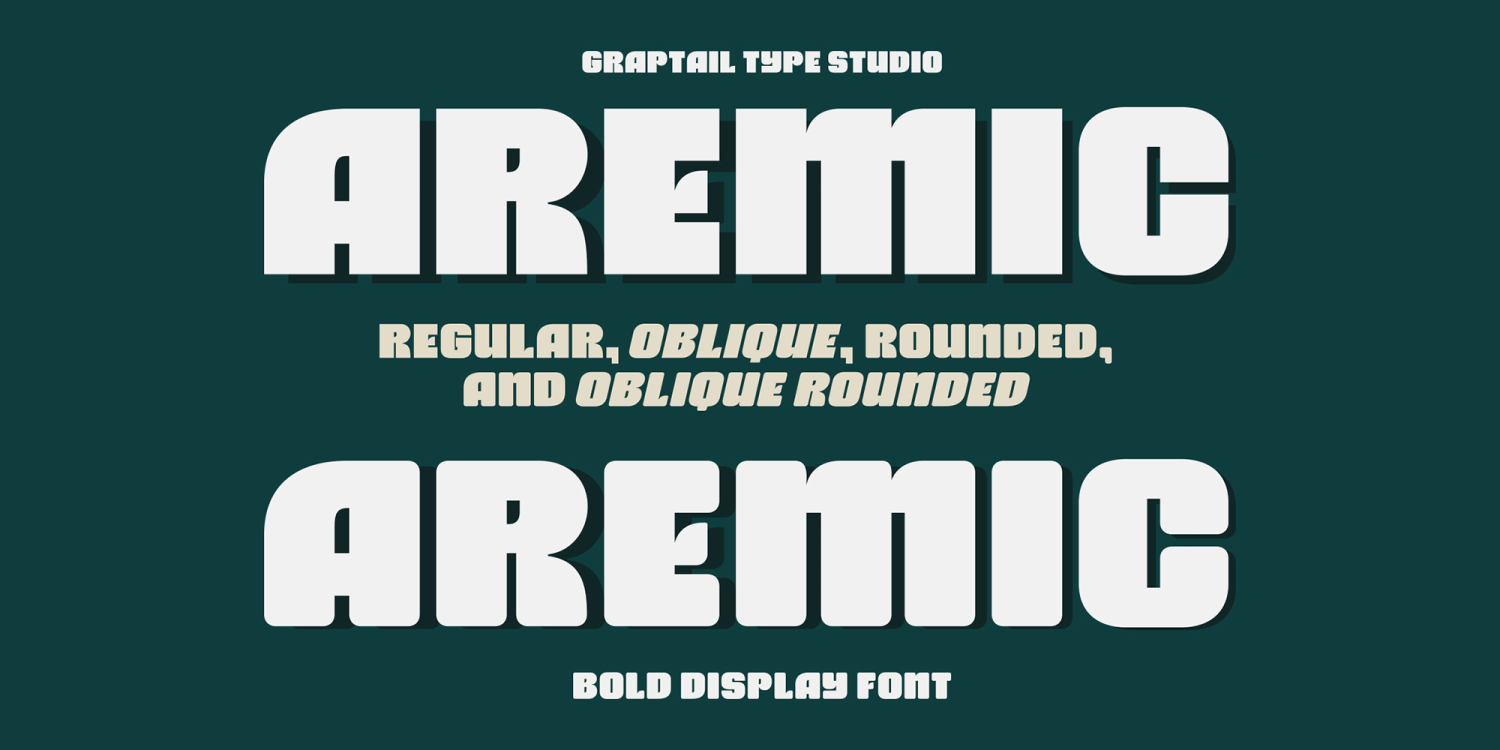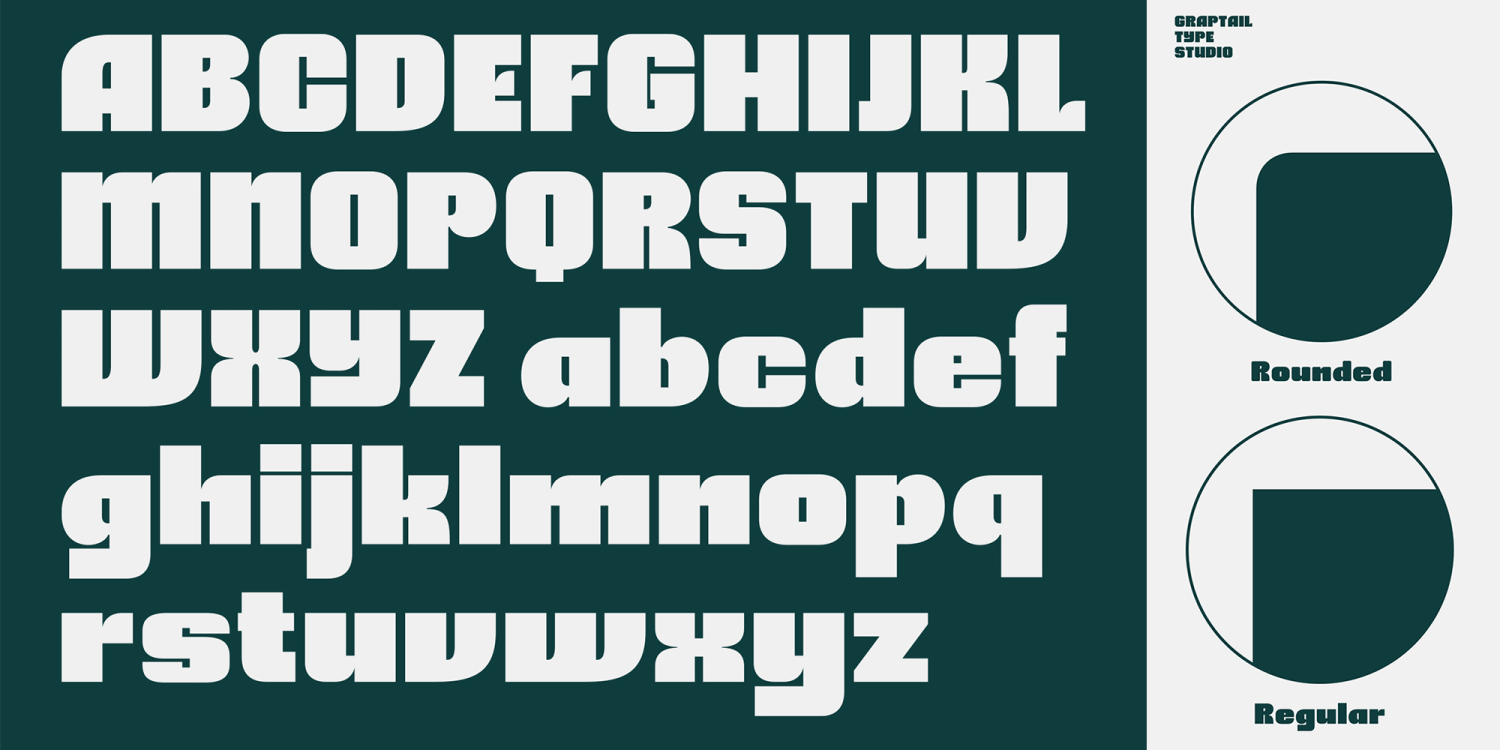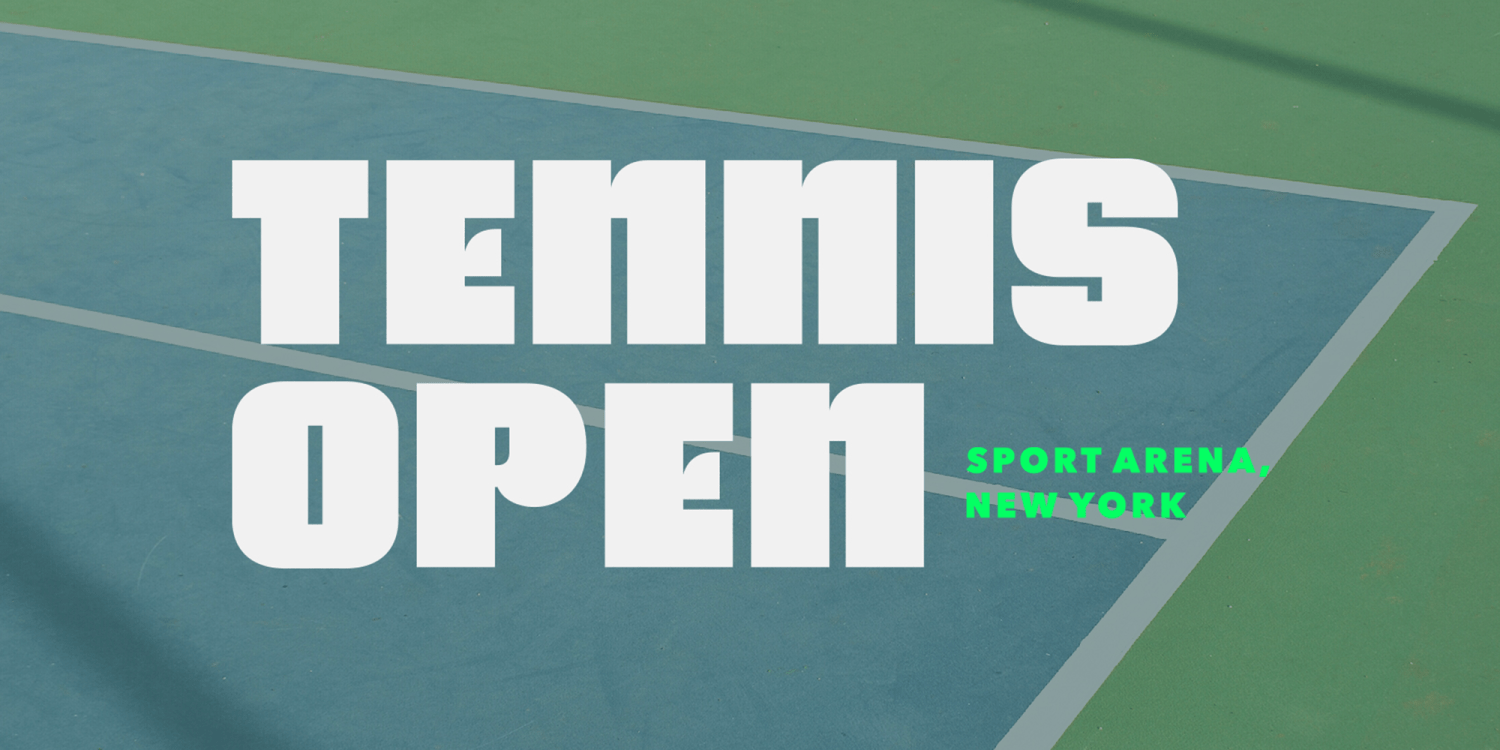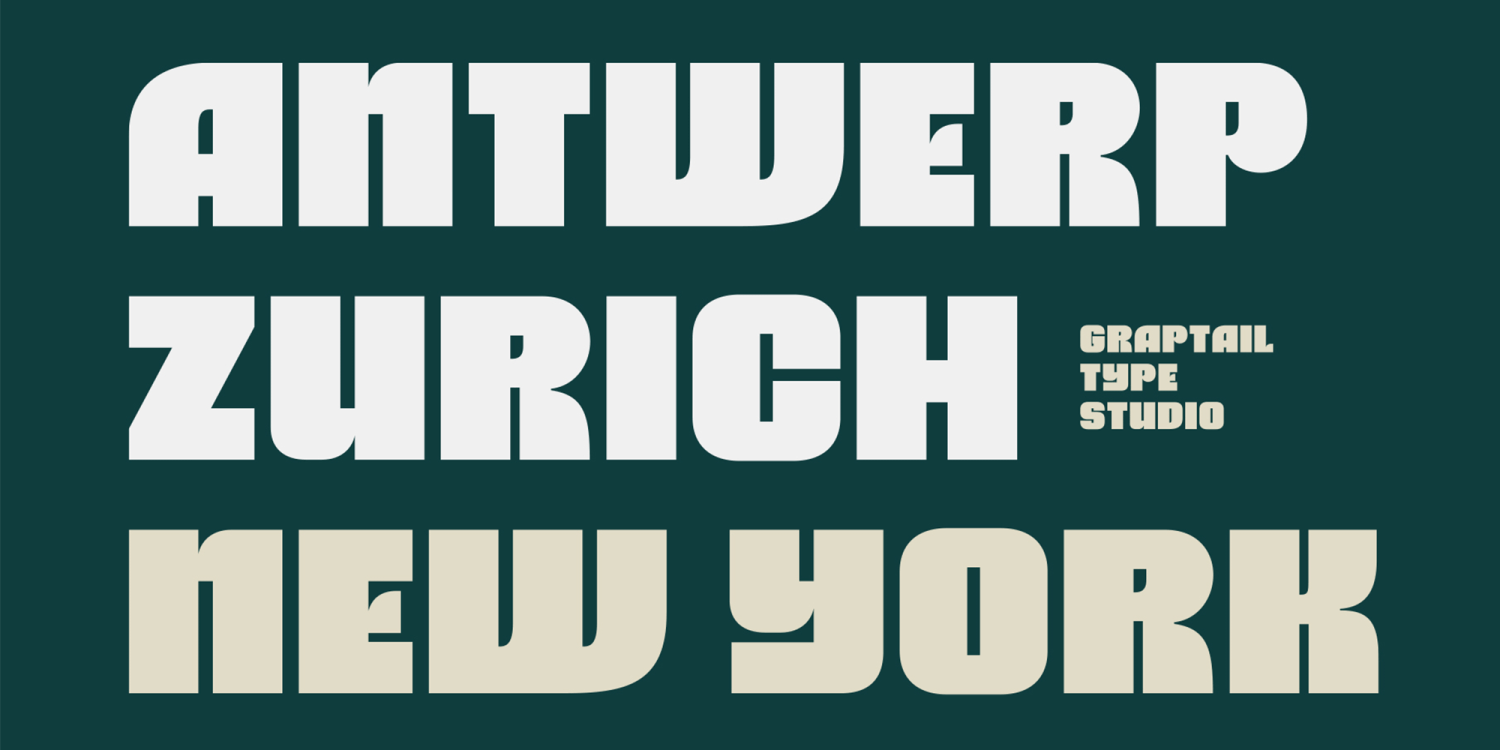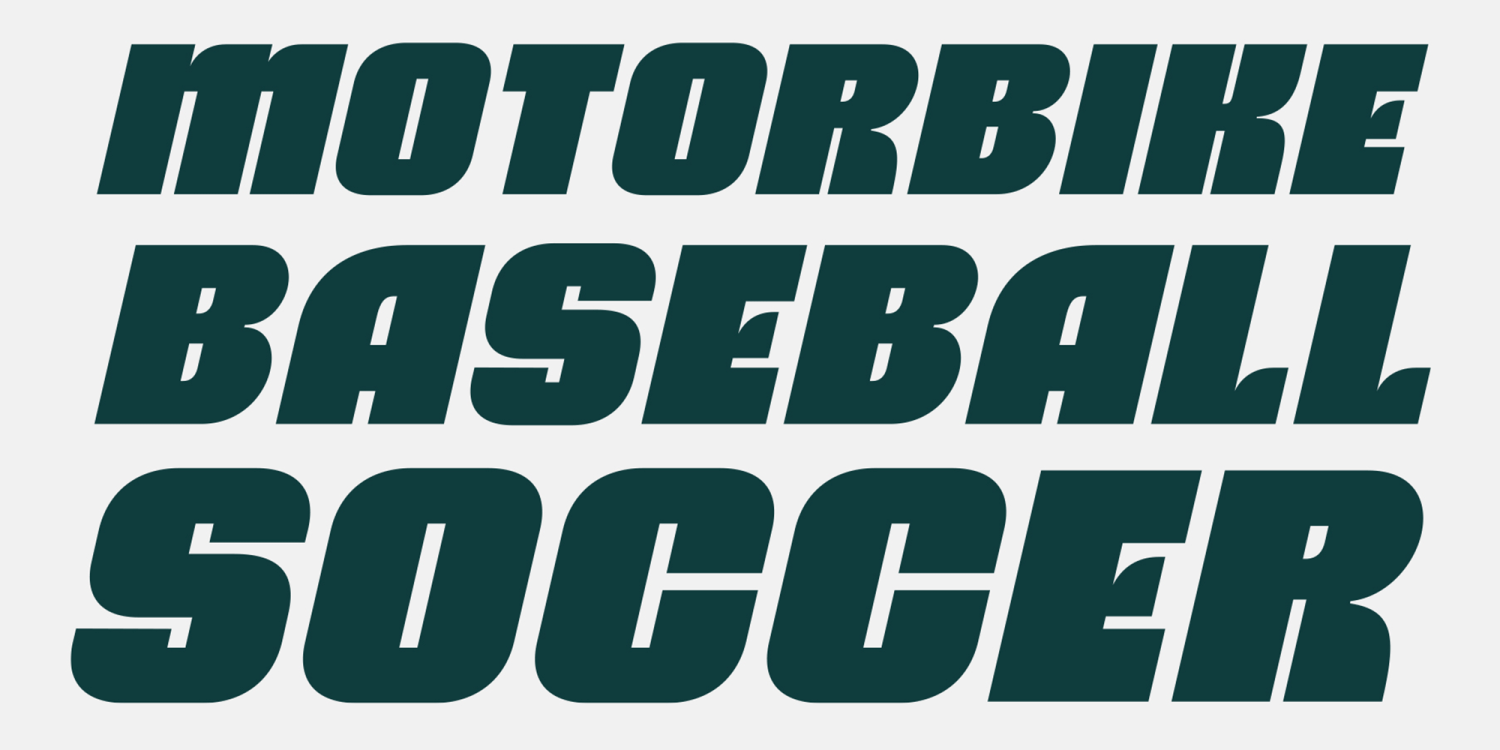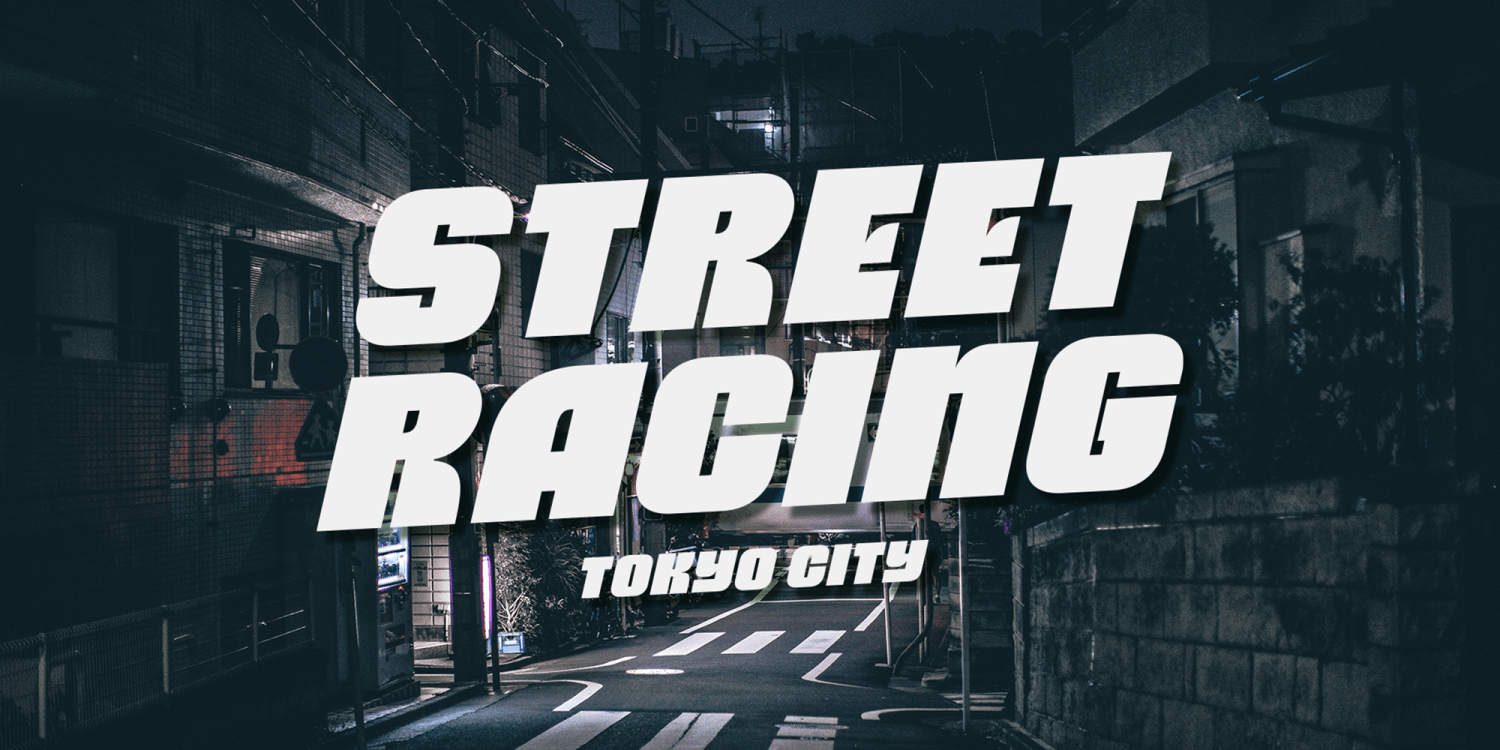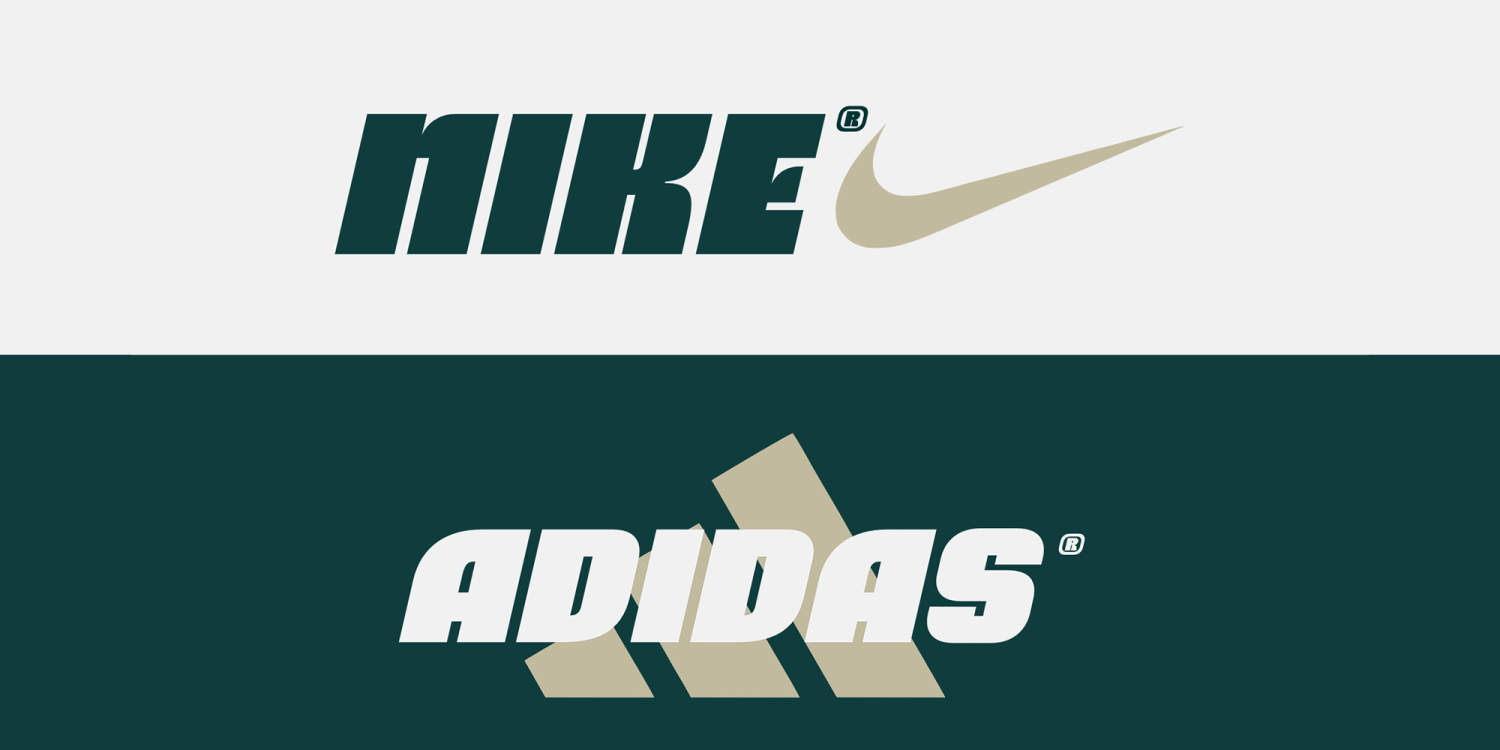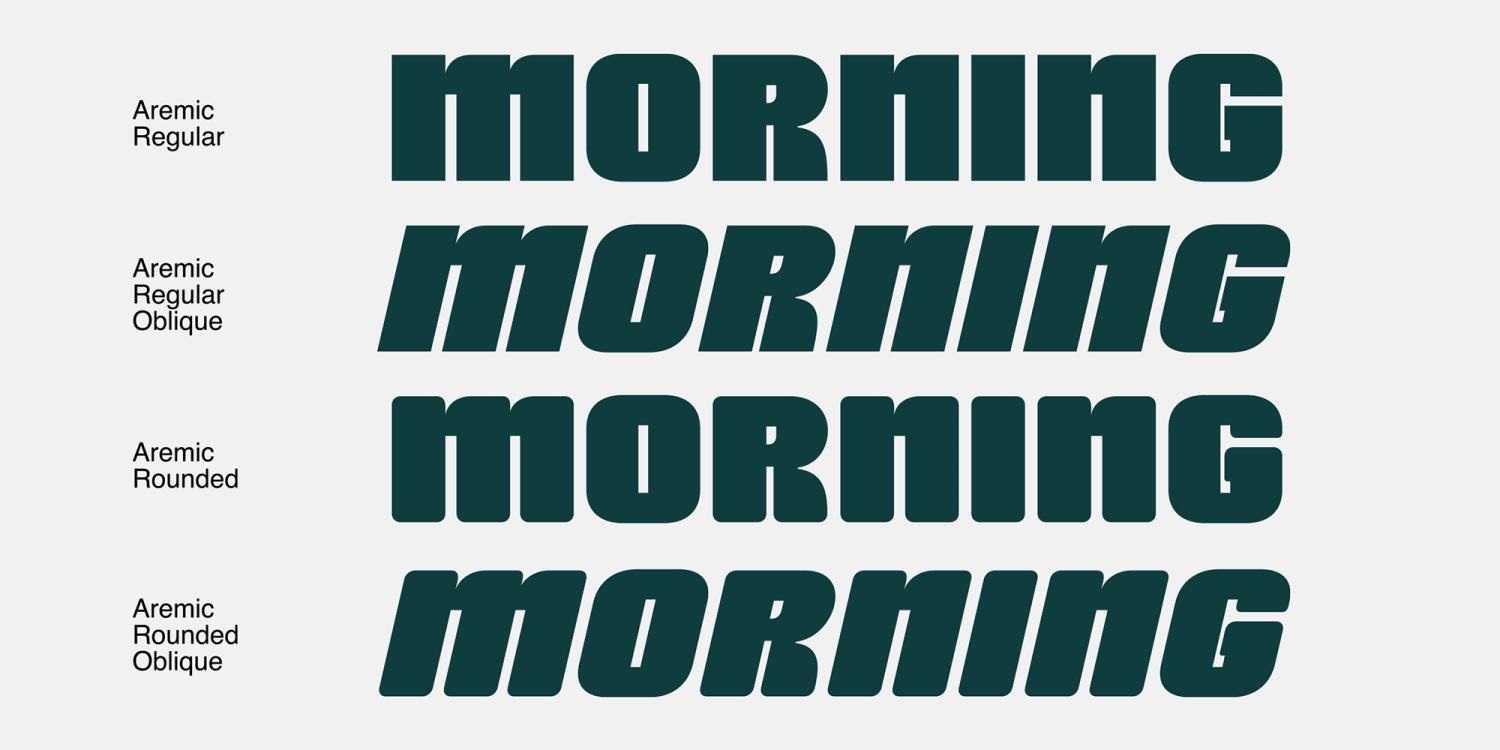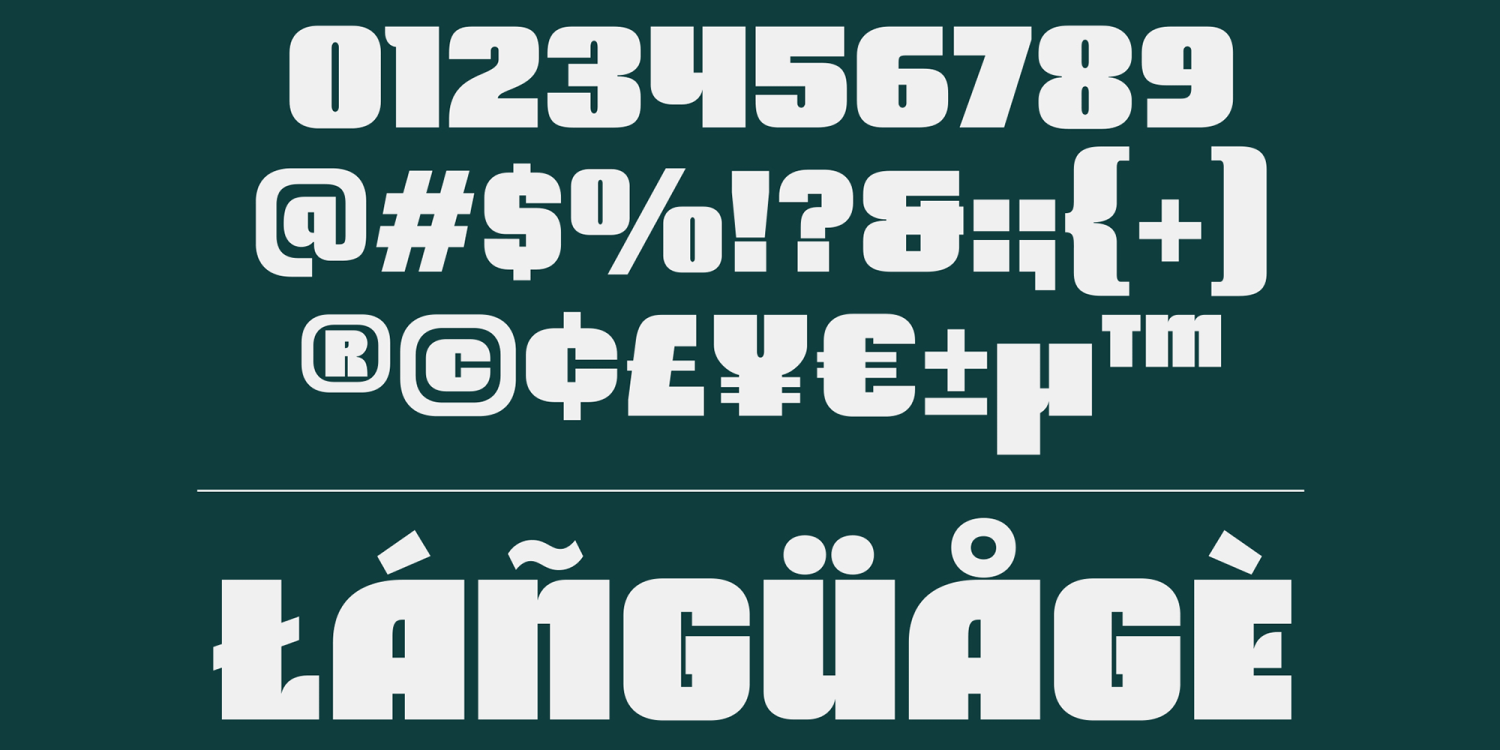
Aremic
Font Family by Graptail
Aremic is a bold display font created to be used for bold headings coming in 2 shapes Regular and Rounded including Oblique. This font is inspired by the shape of the letters on sports posters. This type of font perfectly made to be applied especially in logo, headline, signage and the other various formal forms such as invitations, labels, logos, magazines, books, greeting / wedding cards, packaging, fashion, make up, stationery, novels, labels or any type of advertising purpose.